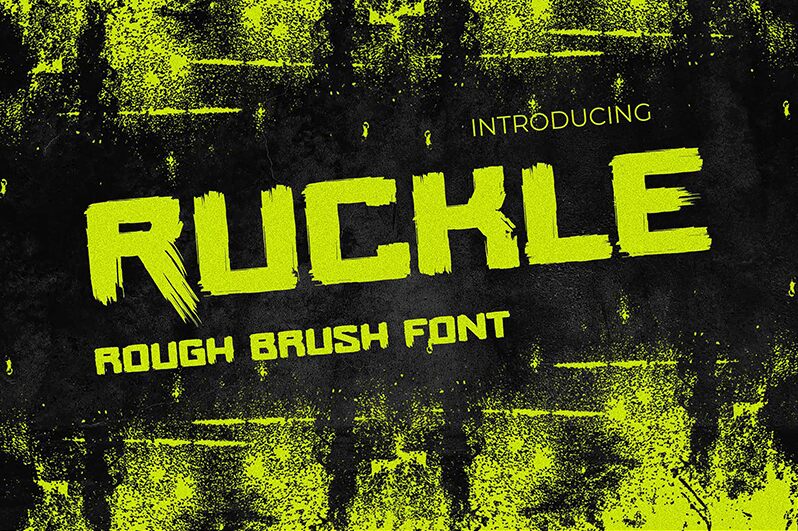
Ruckle font family by Gassstype is a stimulating free brush font that brings an exciting, fresh feel to any design project. The 2 font styles available make sure Ruckle is a unique versatile typeface that can be used for a variety of designs. The style of Ruckle reflects a grunge style with a textured feel and forms marked by energetic mood. The letters are decorative and imaginative which is a key detail of this expressive artistic typeface. Ruckle is characterized by its diverse use possibilities in different designs.
Ruckle has a dynamic appearance and rugged aesthetic perfect for impactful design projects. Whether you’re looking for a font fit for branding, logos, wedding designs, packaging, advertising, brand names, or clothing, this font fits perfectly. Use it to personalize business cards, social media posts, invitation cards, greeting cards, printed quotes, product packaging, product designs, or stationery. The modern appeal of Ruckle ensures it will add an exciting eye-catching character wherever it is used.